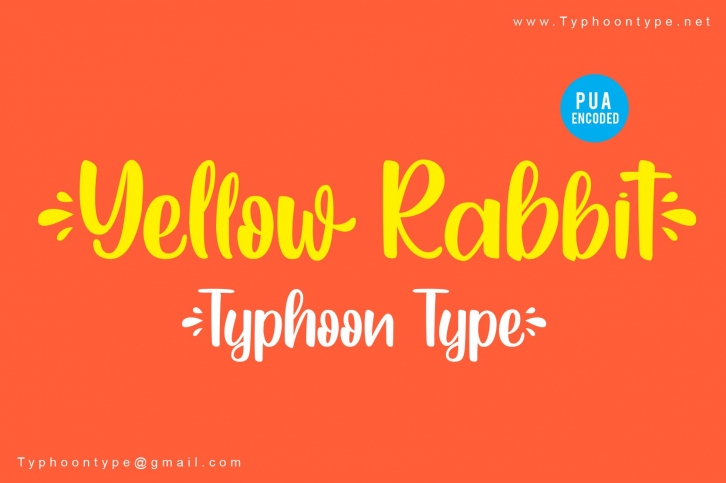
Yellow Rabbit This Font perfect for logos, name tag, advertising, product packaging, clothing, social media & greeting cards.
Type ( before word to get beginning swash and Type ) after word to get the ending swash.
Example : (Yellow Rabbit)